Fino is the Finest
Fino in use by Authentic Finest, a boutique branding agency, for their website.
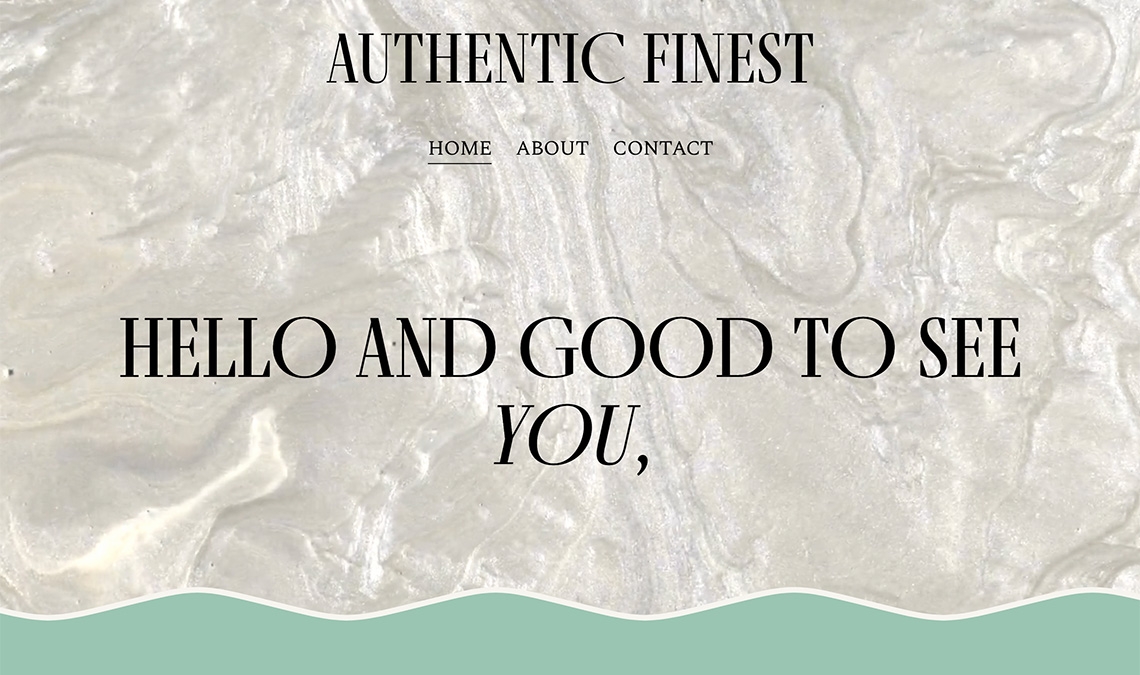
Fino in use by Authentic Finest, a boutique branding agency, for their website.
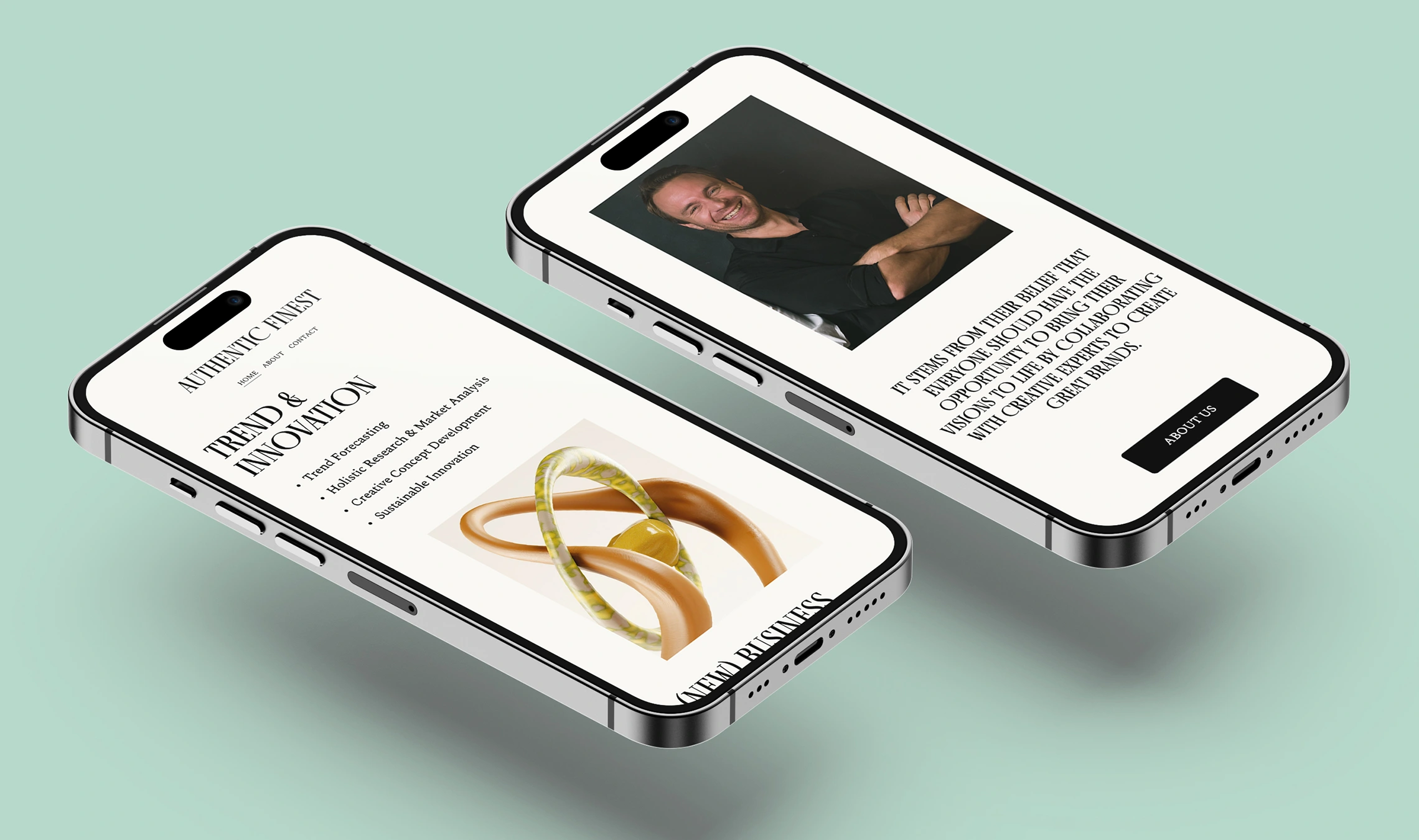
Doloris Schreiber and Jan Rothkranz run Authentic Finest, a boutique branding agency using a multidisciplinary approach. With years of individual history in ideation, marketing, creative, and branding, they decided to form an agency that could move the needle for other brands and targeted campaigns.
Joy. Harmony. Creativity. Excellence. How did Authentic Finest choose to make these organizational qualities visible? By choosing Ermin Međedović’s Fino in all headings and major text, as it was meant to be used. Fino comes in three versions: serif, sans, and stencil. Each is a dramatic, contemporary titling font family that scales beyond the world of looks by tapping into archetypes.
The Fino type system amplifies the genre’s most theatrical aspects while bestowing an uncommon flexibility of style and variation. And on their website it serves to be the style-maker, to slow the reader to a conscientious speed, and reinforce their commitment to excellence and beauty in what they make. Take a look at their site.